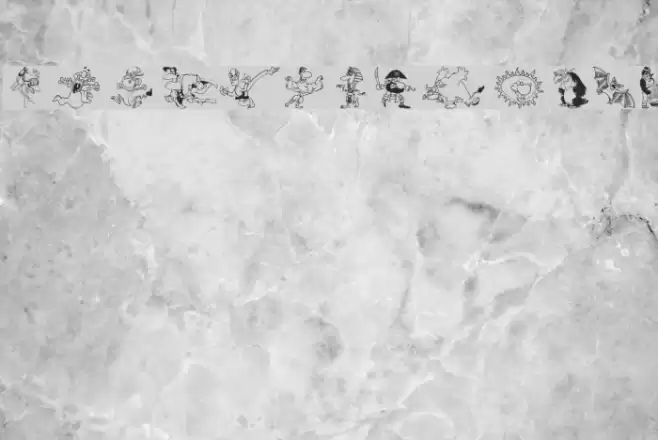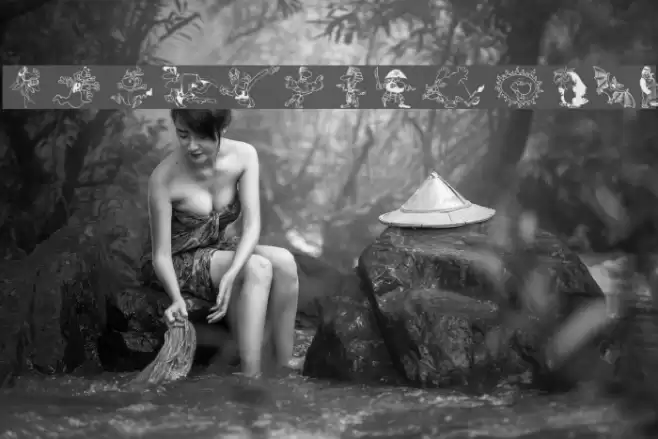
OHNO Font
OHNO Description
A whimsical, illustrative dingbat font featuring a variety of playful cartoon characters and objects, each glyph representing a unique drawing rather than a traditional letterform.
Cartoonish dingbat font with unique character illustrations from Dingbats fonts.
- Proposed Projects: Children's books, party invitations, playful branding, educational materials, decorative borders.
- Overall Style: Whimsical, Playful, Decorative
- Use Case: Decorative elements, Illustrative accents, Themed graphics